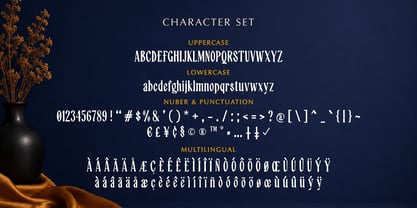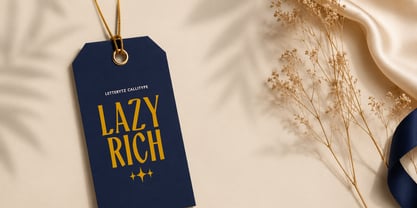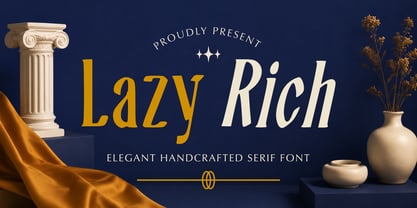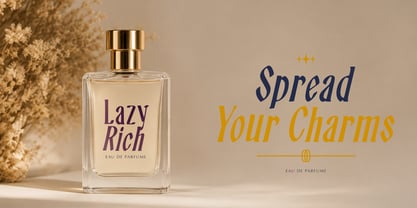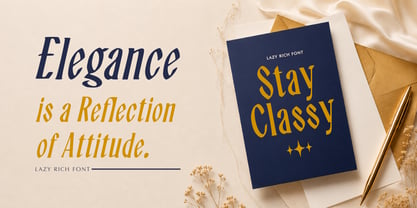
Lazyrich
by Letterytz CalliType
The Lazyrich Font Family was designed by Wahyu Eka Prasetya, Dian Angga Marytama and published by Letterytz CalliType. Lazyrich contains 2 styles and family package options. More about this family
Lazy Rich – Elegant Handcrafted Serif Font
Lazy Rich is a stylish and sophisticated serif font crafted to bring luxury, elegance, and personality into your creative projects. Designed with smooth curves, artistic proportions, and a fashionable touch, this typeface delivers a classy yet playful appearance that stands out beautifully in both modern and vintage-inspired designs.
Inspired by editorial typography and handcrafted lettering, Lazy Rich features refined letterforms with a natural flow, making it perfect for branding, logos, fashion labels, wedding invitations, social media graphics, packaging, magazine layouts, and premium product designs. Its unique character shapes create a warm and expressive look while maintaining excellent readability and versatility.
Whether you are designing elegant headlines, stylish quotes, feminine branding, or luxurious visual identities, Lazy Rich adds a rich artistic atmosphere and timeless charm to every composition.
Features :
✔ Handcrafted elegant serif style
✔ Smooth curves with artistic character details
✔ Stylish and luxurious typography feel
✔ Perfect for branding, logos, editorials, invitations, and packaging
✔ Multilingual support
✔ Includes Regular style
✔ Includes Oblique style
Lazy Rich is the perfect choice for designers who want to create classy, modern, and eye-catching typography with a handcrafted soul.
Designers: Wahyu Eka Prasetya, Dian Angga Marytama
Foundry: Letterytz CalliType